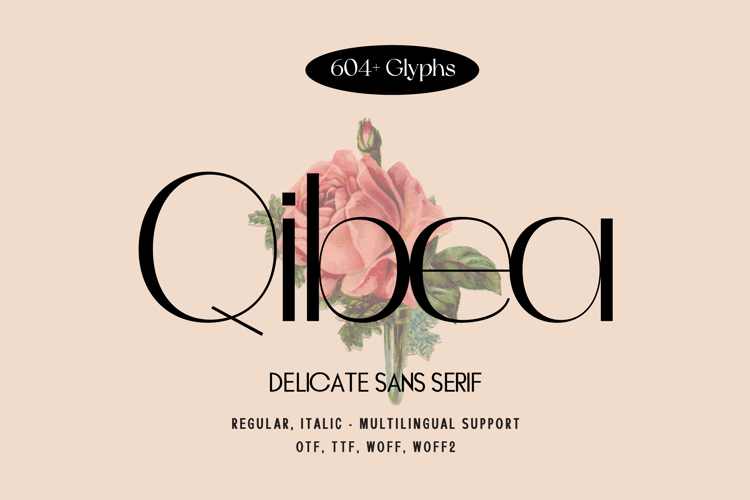
Qibea Font
π¨ Font Name: Qibea by Minimalist Art Studio
π¨ Font Description: Qibea is a delicate sans serif with 600+ glyphs and multilingual supportβideal for feminine branding, editorial elegance, and luxury packaging.
β Complete Latin set + multilingual diacritics
β Alternates, stylistic sets & ligatures
β Numbers, small caps, and extended punctuation
β Bonus italics and family styles